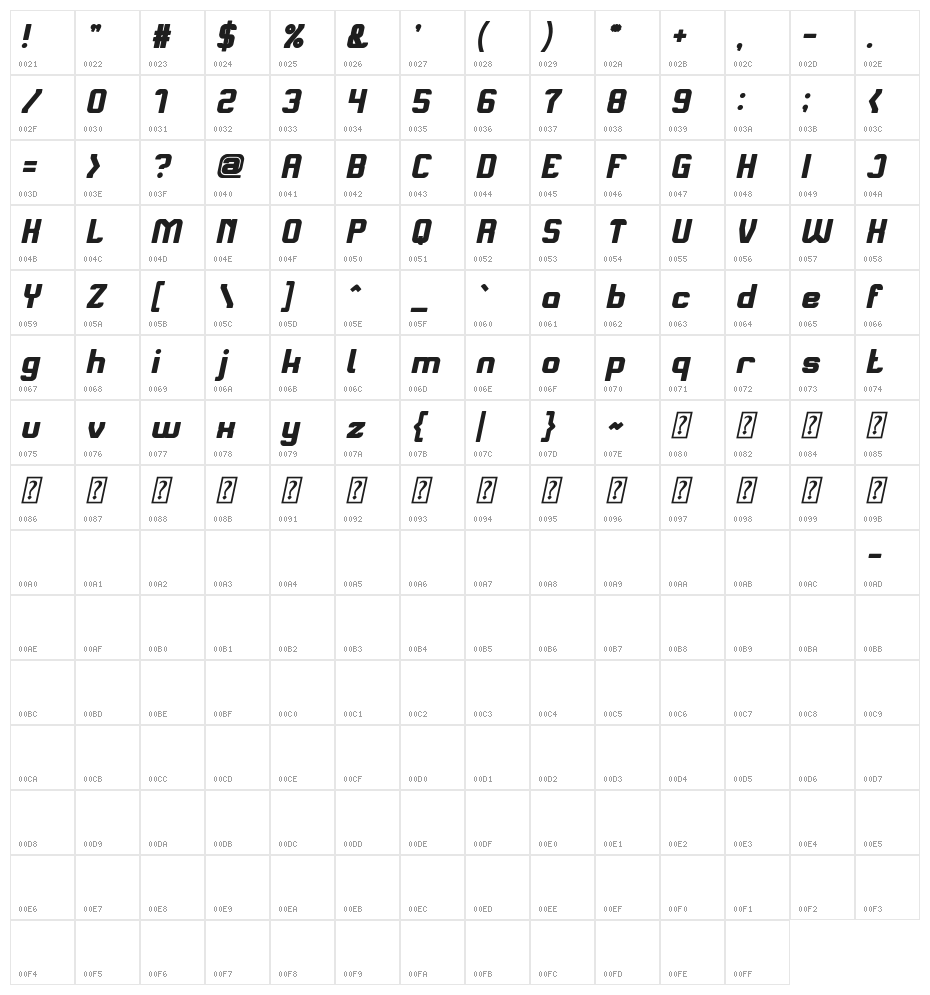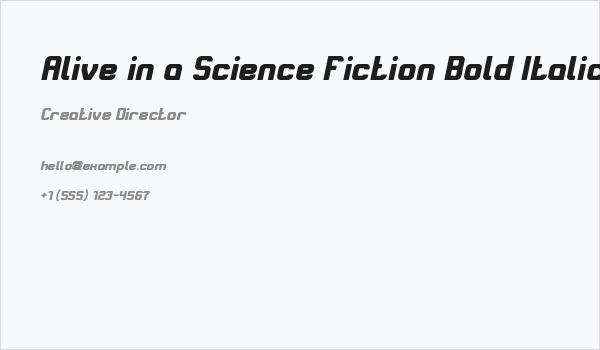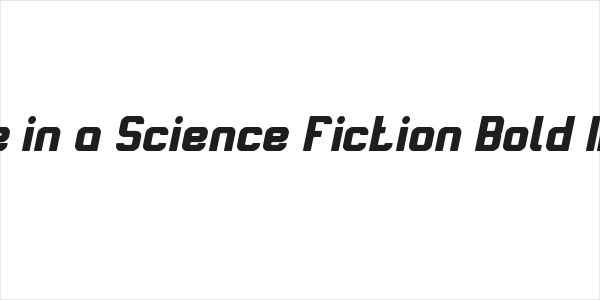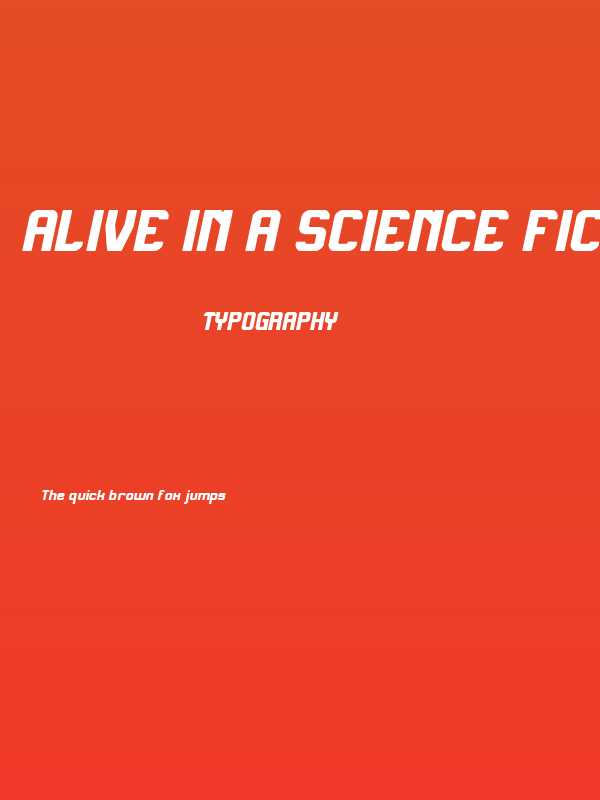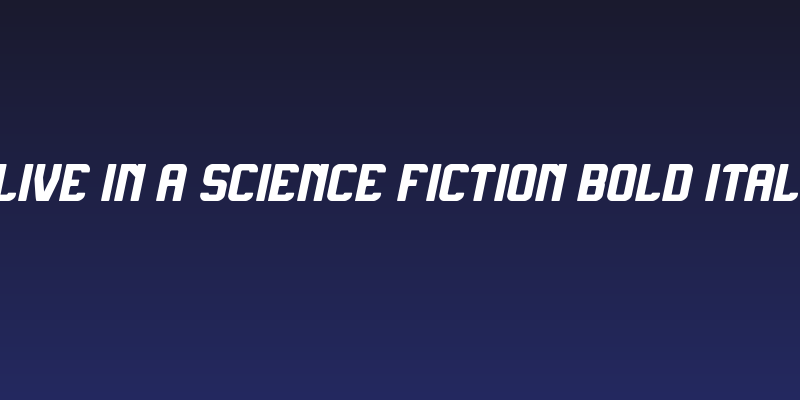
Alive in a Science Fiction Bold Italic Font
Alive in a Science Fiction Bold Italic Description
This font features a bold and italicized style with a futuristic and dynamic appearance. The characters are designed with sharp angles and a slight slant, giving them a sense of motion and energy. The uppercase and lowercase letters maintain a consistent geometric structure, while the numerals and special characters complement the overall aesthetic. The font's bold weight and italic style make it stand out, suitable for projects that require a modern and tech-inspired look.
| Proposed Projects | Ideal for science fiction book covers, tech company logos, video game titles, and futuristic-themed posters. |